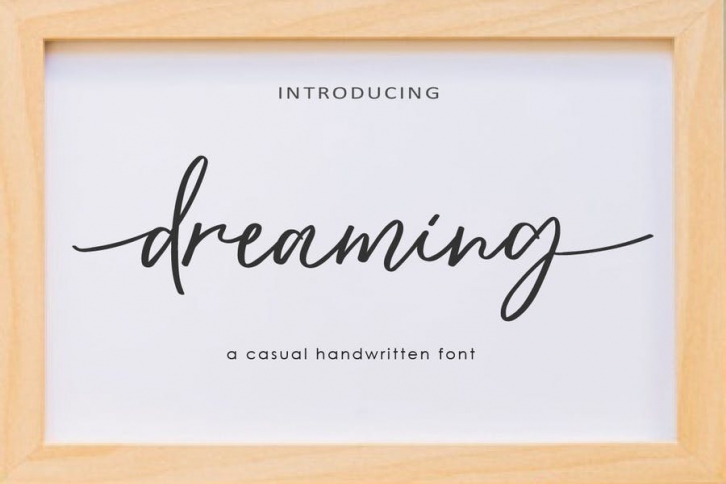
AM Dreaming - Handwritten Script FONT Download
Dreaming is a casual handwritten script, full of personality and curves.Comes with characters that dance along the baseline.
This font is great for your creative projects such as watermark on photography, and perfect for logos & branding, photography, invitation, watermark, advertisements, product designs, stationery, wedding designs,label, product packaging, social media, movie titles, books titles, a short text even a long text letter and good for your secondary text font with sans or serif. And also for special events or anything that need handwritting taste.
• Beginning & Ending Swash